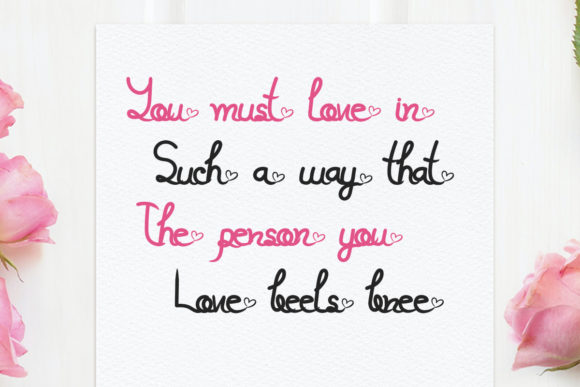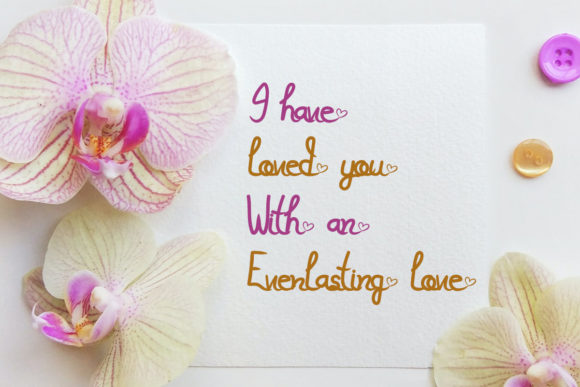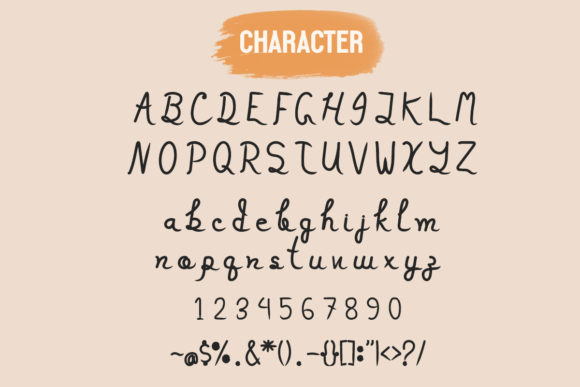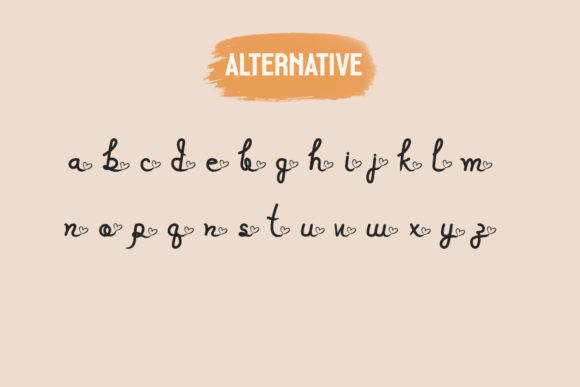
The Ultimate Guide to Aahad Font: Elevate Your Designs with this Trendy Color Font
I’ll never forget the time I was working on a wedding invitation project, and my client asked me to create a custom design that reflected their unique style. I spent hours scouring the internet for the perfect font, but nothing seemed quite right. That’s when I stumbled upon Aahad Font, a game-changing color font that took my design to the next level. In this article, I’ll share my experience with Aahad Font, its features, and how to make the most of it in your designs.
A Personal Review of Aahad Font
- ✨ Unique and trendy design that’s perfect for personalized projects
- 🌈 Beautiful color variations that add an extra layer of depth to your designs
- 💻 Easy to use and navigate, even for those new to color fonts
While Aahad Font is an amazing tool, there are a few things to keep in mind:
- 🤔 Some users may find the color variations overwhelming, but this can be easily managed with a little practice
The Story Behind Aahad Font
Aahad Font was created with the goal of providing designers with a unique and trendy color font that could elevate their designs. The font’s creator drew inspiration from modern design trends and a passion for typography. The result is a font that’s both stylish and versatile.
| Font Name | Aahad Font |
| Author | Rabeya |
| What is Aahad Font? | Aahad Font is a unique and trendy color font designed for creative projects. |